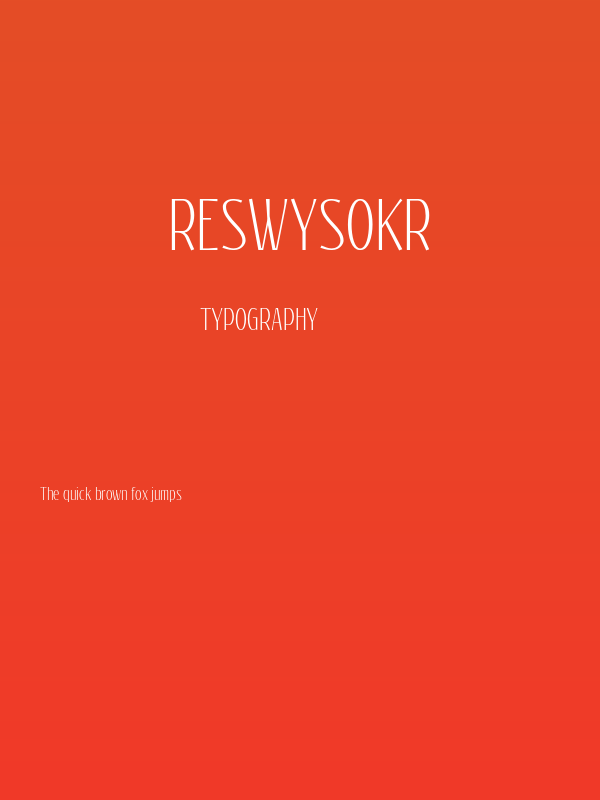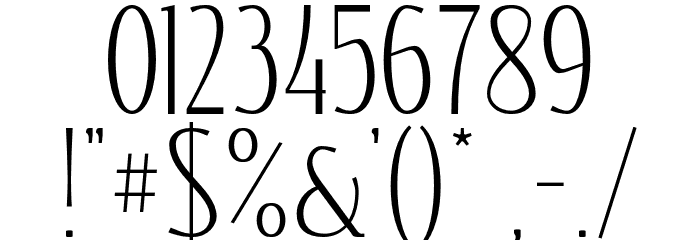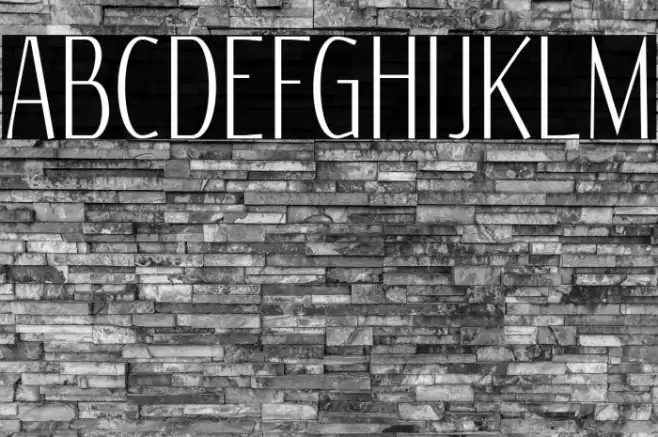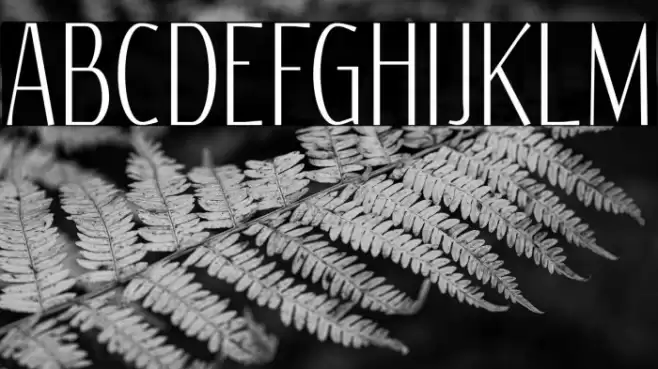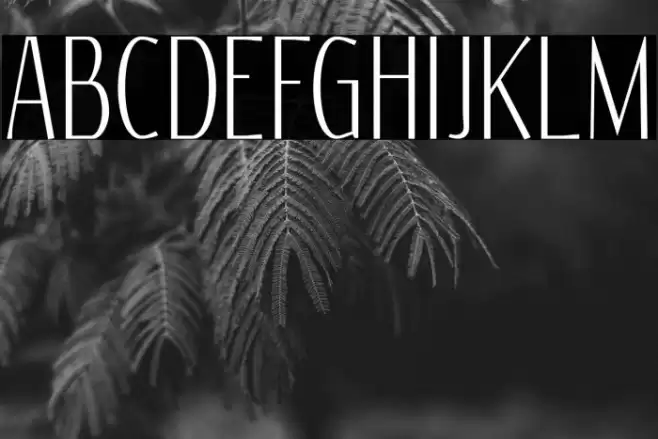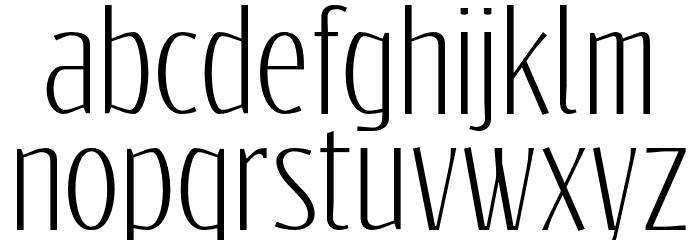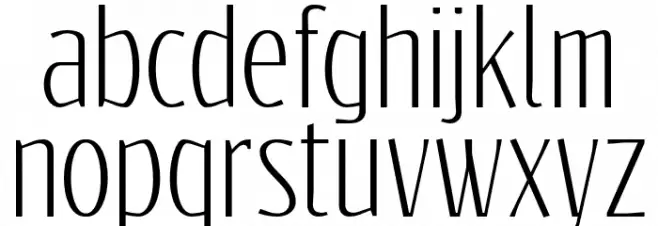
Reswysokr Font
Reswysokr Description
This font features a modern and sleek design with tall, narrow characters that convey a sense of elegance and sophistication. The uppercase letters are particularly elongated, giving them a distinctive and stylish appearance. The lowercase letters maintain a consistent height, which complements the uppercase set. Numbers are clear and legible, with a uniform thickness that ensures readability. The special characters are well-integrated, maintaining the overall aesthetic of the font. This typeface is versatile, suitable for both digital and print media, and can be used to create a contemporary look in various design projects.
| Proposed Projects | Ideal for fashion magazines, luxury branding, modern websites, and elegant invitations. |